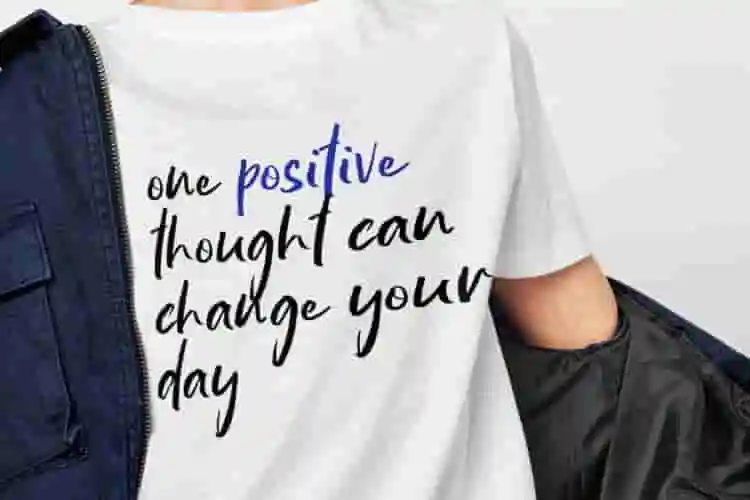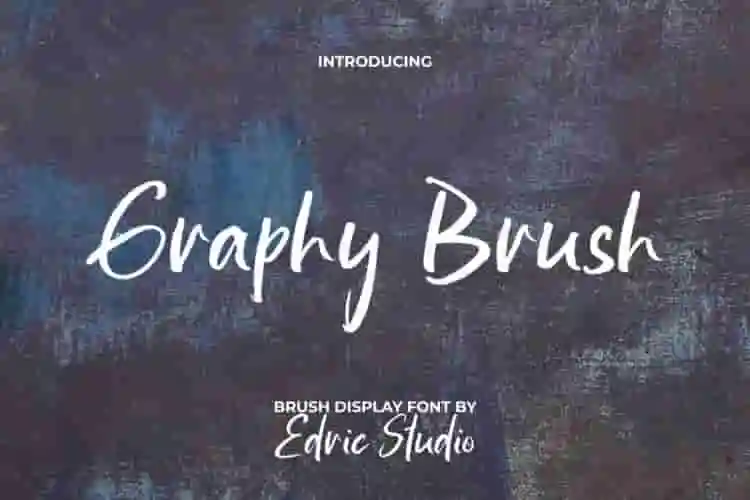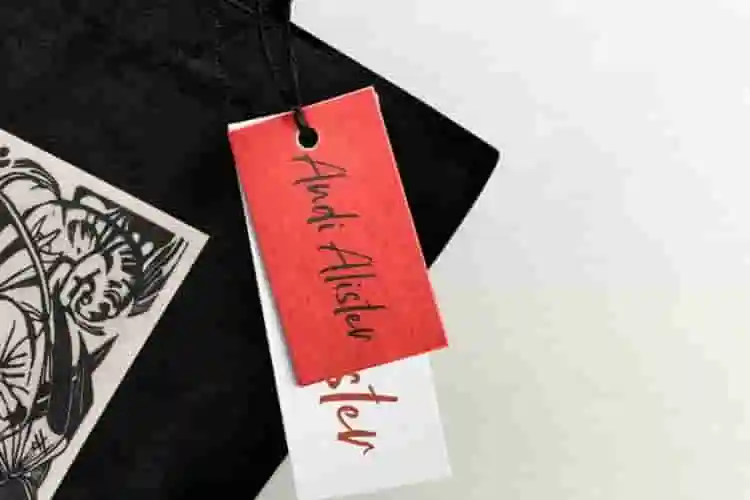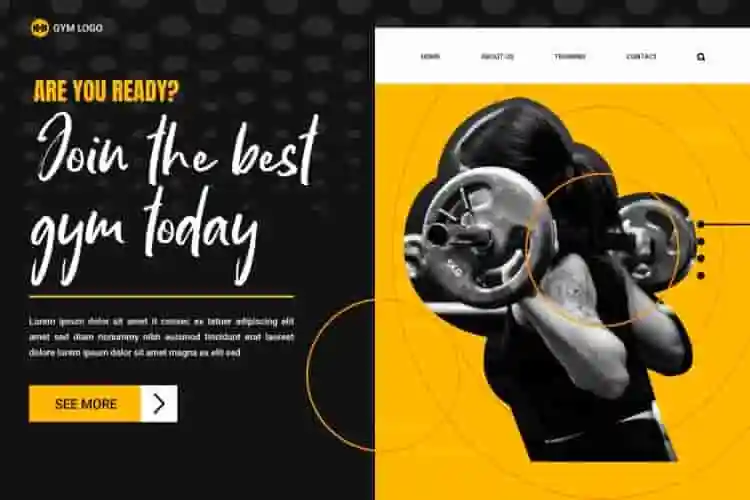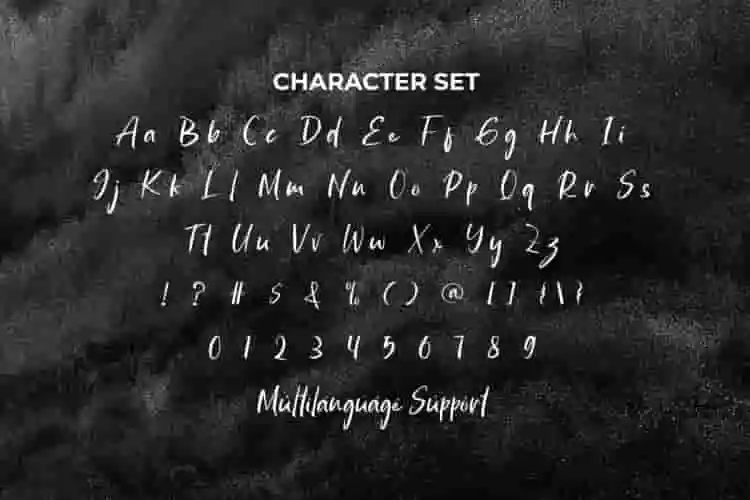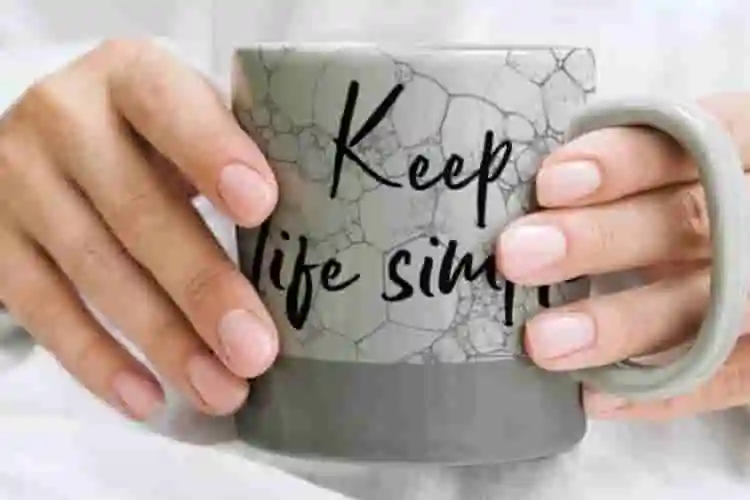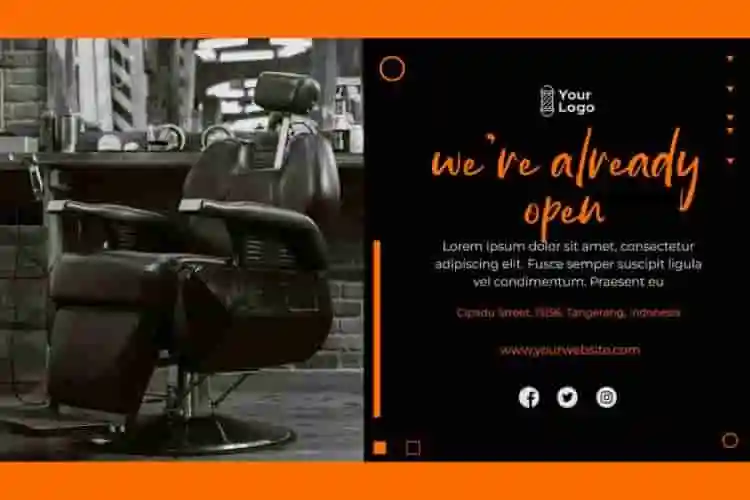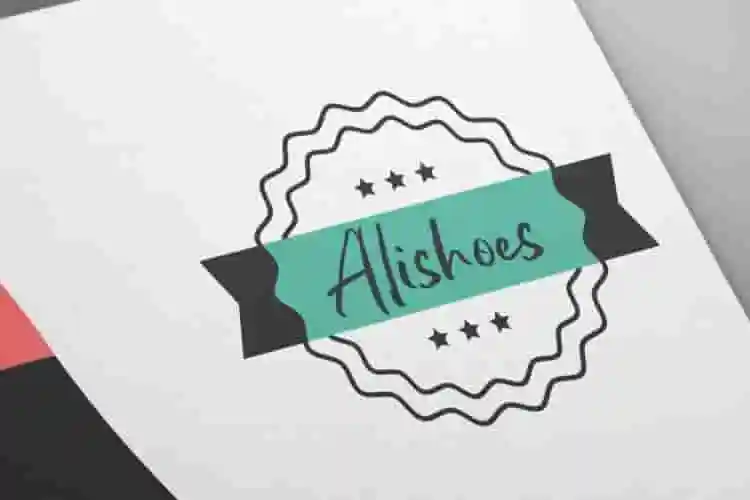
Graphy Brush Font
Graphy Brush Font is a stylish brush script font from EdricStudio. The characters in this letter have a charm that can make your design interesting and cool! It will be suitable for any industry, including: accessories, author, barbershop, cafe, clothing brand, handicrafts, music, photography, printing, publishing, sport, and many more!
Graphy Brush Font comes with full set of Uppercase and Lowercase Basic Characters, Number, a large range of Punctuation and Symbol. It has a stunning characters set, perfectly managed with well spaced and kerning. Graphy Brush Font will be able to complement for any project (with extended license) including: brand image, brochure, custom design, label, poster, product packaging, screen print, stationary, sticker, website page, etc.
Say hello to Graphy Brush Font, a raw and expressive brush typeface that brings hand-painted style and bold personality to your designs. Created with real brush strokes, Graphy captures the imperfect charm and dynamic movement of hand lettering—making it perfect for creatives who want their typography to feel alive.
This brush font is bold, textured, and full of attitude. Whether you’re working on edgy branding, social media content, music posters, or handmade product packaging, Graphy makes your message feel authentic, loud, and unfiltered. Every letter in Graphy Brush Font is designed to flow with a natural rhythm.
• Handmade Brush Style
• All-Caps Typeface